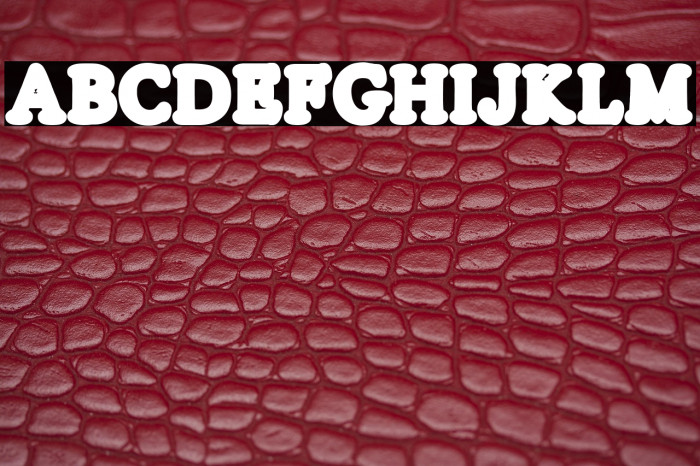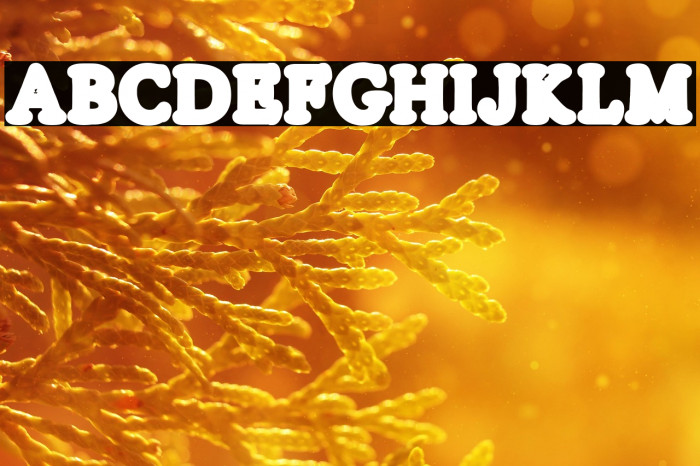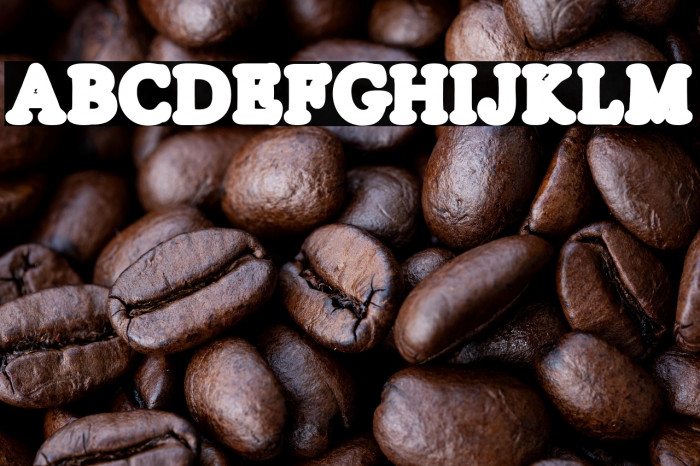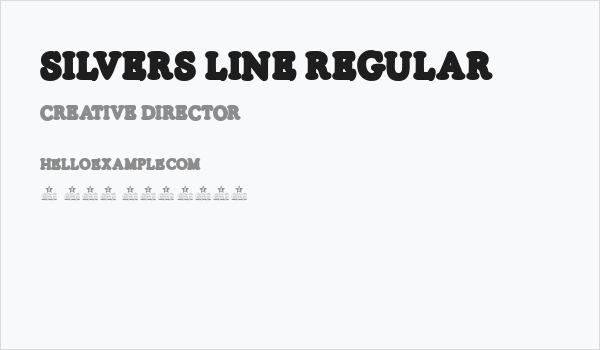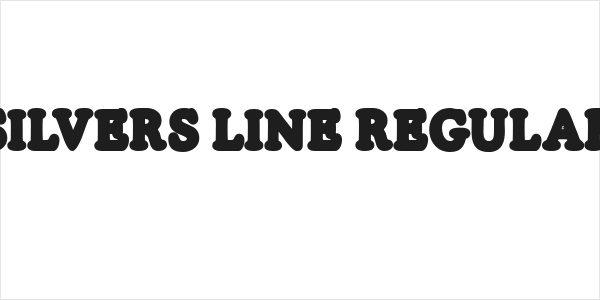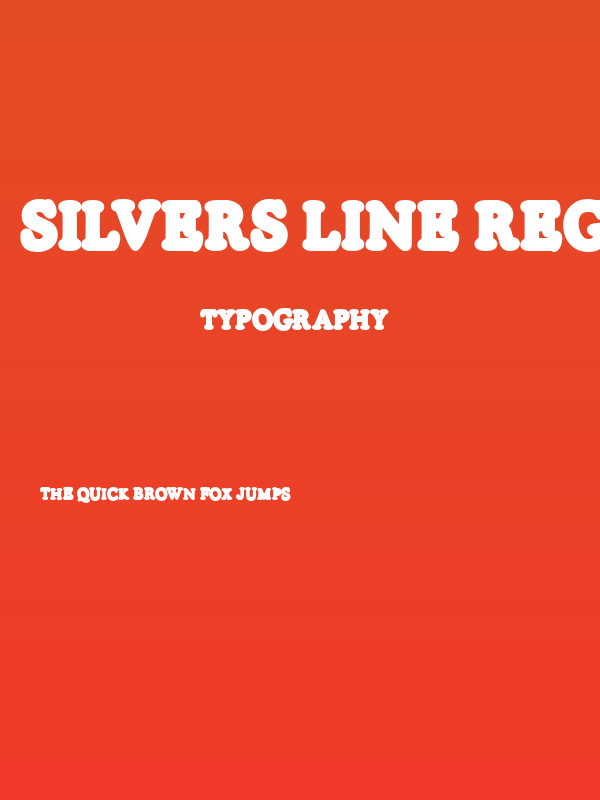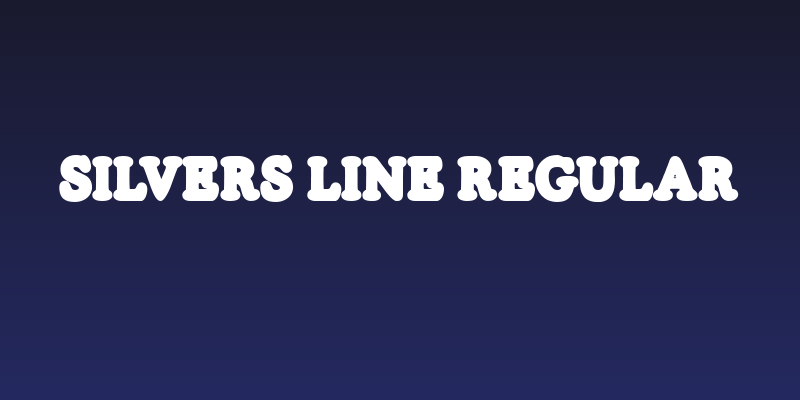
SILVERS LINE Regular Font
SILVERS LINE Regular Description
This font features bold, rounded characters with a playful and decorative style. The letters are thick and have a bubbly appearance, making them stand out with a strong visual presence. The uniformity in stroke width gives it a cohesive look, while the rounded edges add a friendly and approachable feel. This style is reminiscent of retro or vintage designs, often used to evoke a sense of nostalgia. The font is highly legible due to its boldness and simplicity, making it suitable for various display purposes.
| Proposed Projects | Ideal for posters, logos, children's books, and any project requiring a fun and eye-catching typeface. |